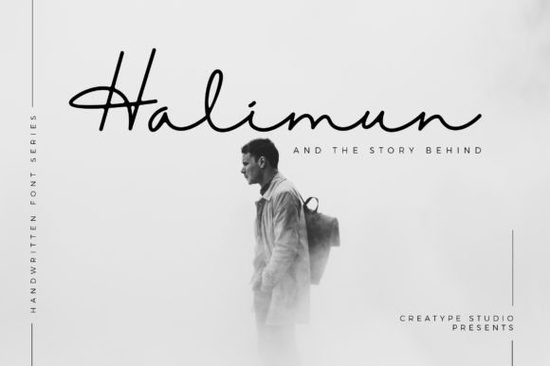
If you're looking for a modern script font that balances elegance with everyday usability, Halimun Font is worth your attention. It’s not overly ornate or difficult to read instead, it offers smooth, confident strokes and subtle flourishes that feel intentional, not distracting. Whether you're designing a boutique logo, crafting social media graphics, or preparing print-on-demand products like mugs or greeting cards, Halimun fits naturally into projects where you want sophistication without sacrificing clarity.
What makes Halimun different from other script fonts?
Many script fonts fall into one of two camps: either too formal and stiff, or too casual and hard to read at smaller sizes. Halimun sits comfortably in the middle. Its letterforms flow with gentle rhythm think of handwriting that’s been refined through practice, not rushed notes. The spacing is open, the x-height generous, and the swashes are tasteful rather than overwhelming. Because it’s PUA encoded, you get full access to alternate characters, ligatures, and stylistic sets right in your design app no need for complex OpenType panels or workarounds.
You’ll notice this especially when typing names or short phrases. For example, the lowercase “g” and “y” have graceful descenders, while uppercase letters like “Q” and “S” carry just enough personality to stand out without clashing with surrounding text. It pairs well with clean sans-serifs (like Montserrat or Inter) for contrast, or even with soft serif companions for editorial layouts.
Who uses Halimun and where does it work best?
Small business owners building their first brand identity often choose Halimun for its versatility. A handmade soap label, a wedding invitation suite, or a café menu all benefit from its quiet confidence. Print-on-demand sellers appreciate how well it scales whether it’s embroidered on a tote bag or printed tiny on a sticker sheet, it stays legible.
Crafters who design digital cut files also find it reliable. Unlike some script fonts that rely heavily on connected strokes (which can cause cutting issues), Halimun’s structure allows for clean vector exports and smooth Cricut/Silhouette use especially when using the standard weight without excessive swashes.
Designers working on client projects often reach for Halimun when they need something fresh but professional say, for a wellness brand launching a new product line, or a local florist updating their Instagram aesthetic. It doesn’t scream “trendy,” which means it ages well. You won’t look back in six months and wonder why you chose something that feels dated.
How does it compare to similar fonts on Creative Fabrica?
If you’ve tried Angela Font, you’ll recognize Halimun’s emphasis on rhythm and balance though Angela leans slightly more romantic and delicate, while Halimun feels grounded and contemporary. Bridgerton Font has stronger historical flair, with dramatic contrast and Victorian influence; Halimun is more at home in a modern minimalist setting.
For floral or nature-themed designs, Angela Flower Font adds botanical elements directly into the glyphs great for themed projects, but less flexible for general branding. Meanwhile, OurStory Font Duo gives you a matching sans + script combo, which solves pairing questions upfront. Halimun works beautifully on its own, but also adapts easily if you already have a go-to sans-serif.
And if you’re used to playful, hand-drawn options like Kids Crayon Font, Halimun will feel like a shift toward polish not less creative, just more refined. It’s the kind of font you reach for when the project calls for trust, calm, and care.
Try testing it with real content first: type your business name, a tagline, and a short sentence. See how it behaves at 14pt vs. 60pt. Toggle between standard and swash versions to get a feel for where each shines. And remember not every word needs a flourish. Sometimes the cleanest version reads best, especially in longer blocks.
For reference, you can see how Halimun Font is used across real projects on Creative Fabrica’s site including mockups for apparel, stationery, and web banners.
- ✅ Use Halimun for logos, quotes, and headings not body text
- ✅ Pair it with a neutral sans-serif (avoid other scripts unless intentionally contrasting)